Can't work out this font can anyone help?
I have been asked by work to recreate this image in a vector format. I tried to convert to vector to begin with but certain parts of the image were lost during the conversion so I recreated it.
anyway its all gone well up until the lettering I can't for the life of me find this font on illustrator, I'm starting to wonder if someone drew it up themselves instead of simply finding a font and sticking with it.
can anyone help me either find this font or tell me what the easiest way to re-create it would be?
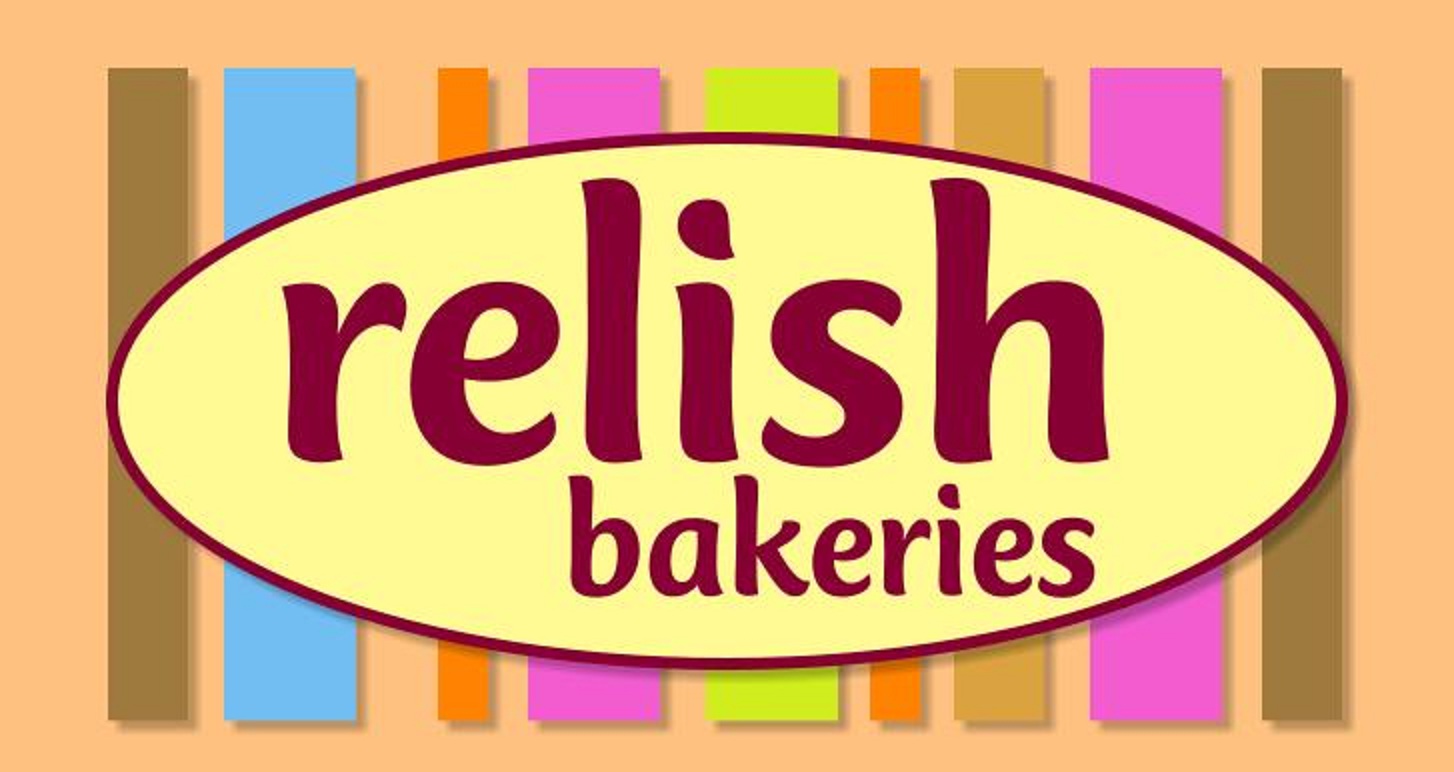
Thanks for the reply I found one that was slightly similar but no dice. guess I'm just going to have to try to pen it in with illustrator.
You're trying to recreate the font as a set of paths? What happens when the client requests a logo change, or expects to see that font in company headings? Redraw an entire character set? I think you *really* need a font.
Do you know where the original logo came from, or who drew it?
When he requests a Logo change I guess I'l have to draw him up a new one.
We don't know who drew the original logo as we're under new management and the old manager is reluctant to contact us about anything.
I'l leave one with a blank space for text just incase we do find out who the original designer was.
When he requests a Logo change I guess I'l have to draw him up a new one.
As a designer, you have to be careful about things like this. Clients have a hard time understanding the difference between trivial and difficult requests. They also have a nasty habit of demanding that latter are delivered yesterday, even things they've previously insisted would never be required.
FWIW, I have never worked on a project where a request of that nature did not arise. As such, I'd strongly recommend you clearly communicate to the client that revised logos and artwork are out of the question unless you can get the original font or replace it with another.
Thanks for the tip. This is my first job in graphic design since I've left college so I've no idea what to expect, luckily my first job has been easy and he's settled for a comic sans font for the logo. Thanks for the help guys.
... he's settled for a comic sans font for the logo.
Oh dear. Let's hope that opinion changes. Comic sans is considered the most annoying and overused font.
I think Sans MS gets a lot of bad press... it is a fun font.  Yeah it is over used but it does the trick depending on what you want if for.
The thing is, there are better comic-style fonts with better kerning and better readability and more style and otf features such as alternate characters (which really come in handy to prevent it from being obviously machine generated, by making different "e"s look different, for example).
What about Tucker Script?
With some tweaking (maybe better tracking), I think it could work.
That is a nice font but he seems pretty set on Comic Sans now that he's seen it.